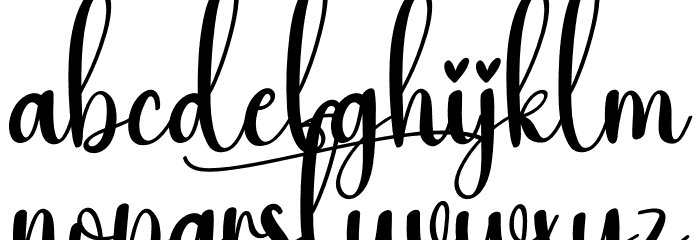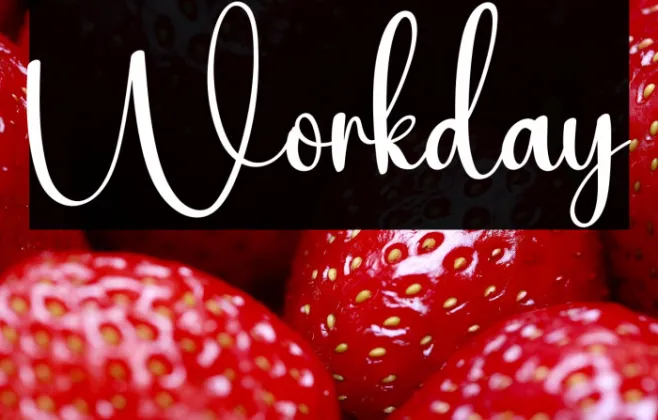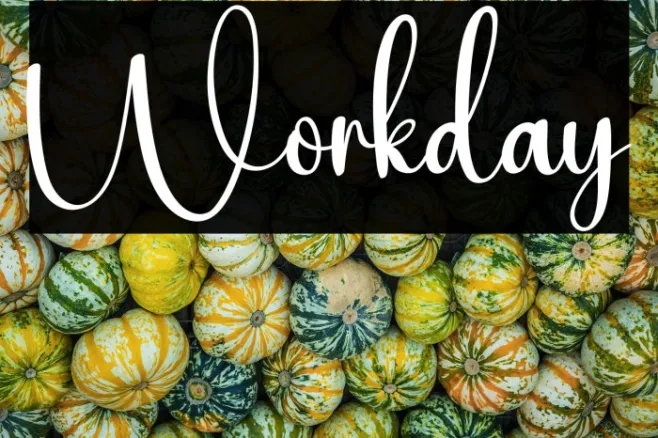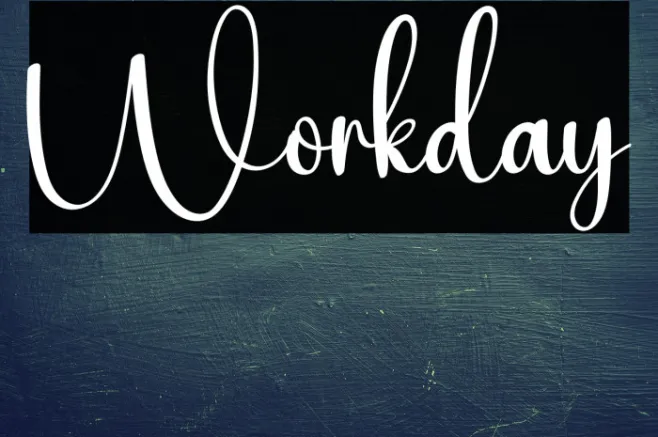
Workday Font
A playful and flowing handwritten script font with a modern touch, featuring connected letters and varying stroke widths.
Playful handwritten script font.
- Proposed Projects: Greeting cards, invitations, personal branding.
- Category: Script
- Character Spacing: Tight
- Overall Style: Modern, Decorative
- Use Case: Logos, Headlines, Invitations